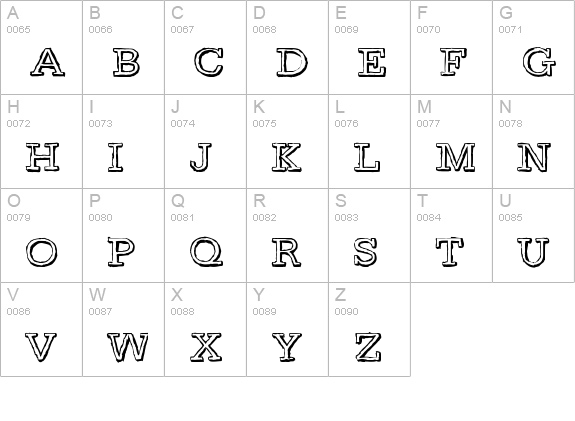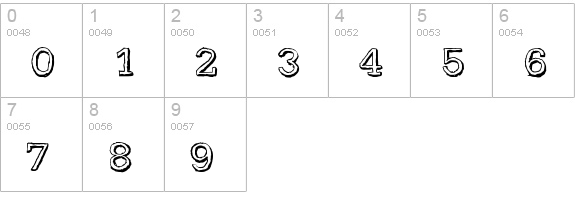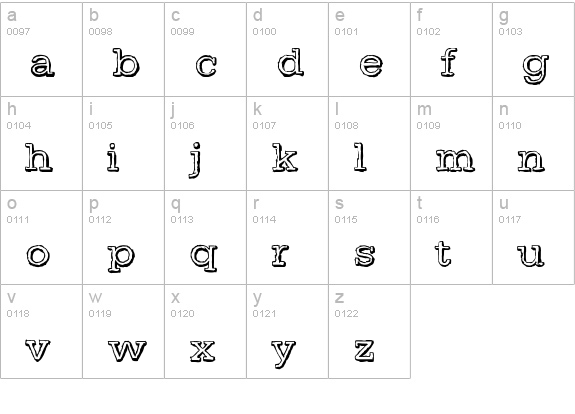
DayLight font is a breathtaking and versatile typeface that will illuminate your designs with its radiant charm. With its elegant curves and clean lines, this font exudes a sense of sophistication and modernity that is sure to captivate your audience. Whether you are designing a logo, creating a branding project, or crafting eye-catching headlines, DayLight font is the perfect choice to make your designs shine. Its balanced proportions and smooth letterforms make it highly legible and easy on the eyes, ensuring that your message is conveyed with clarity and style. One of the most enticing aspects of DayLight font is that it is completely free. Yes, you heard that right! This stunning font is freely available to download at FontsMarket.com, a reputable online platform for high-quality fonts. So, not only will you be able to enhance your designs with this remarkable typeface, but you can also do so without breaking the bank. DayLight font is a true gem in the world of typography. Its versatility and seamless integration into various design projects make it a must-have for any designer or creative professional. So why wait? Download DayLight font today from FontsMarket.com and let your creativity soar to new heights.